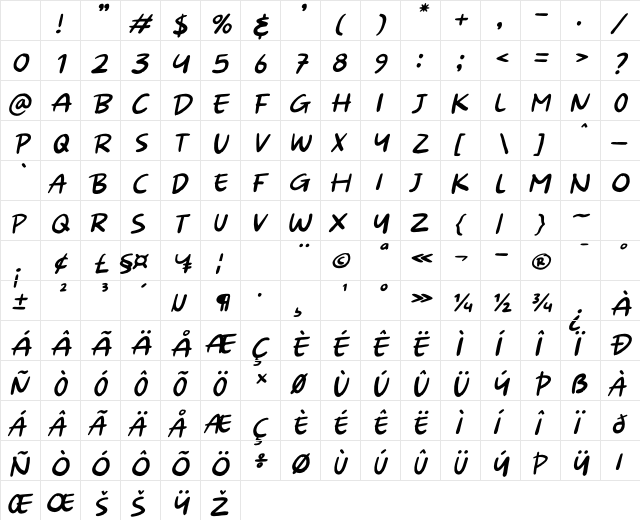
VIENTO ITALIC is a composed and adaptable typeface that performs quietly and consistently across a wide range of design contexts. The slanted form adds forward momentum and visual energy.
Pro Tip: Use VIENTO ITALIC for emphasis, pull quotes, and subheadings where its slanted energy can add rhythm to the layout.